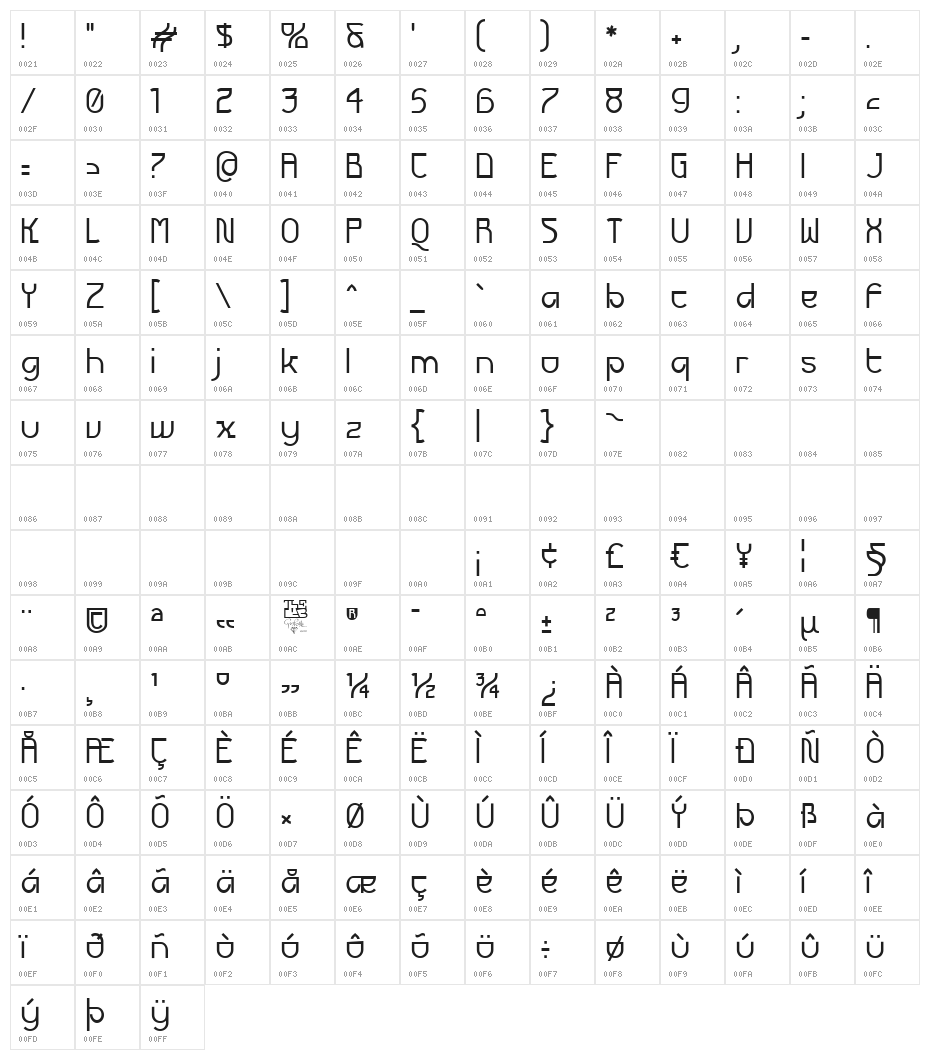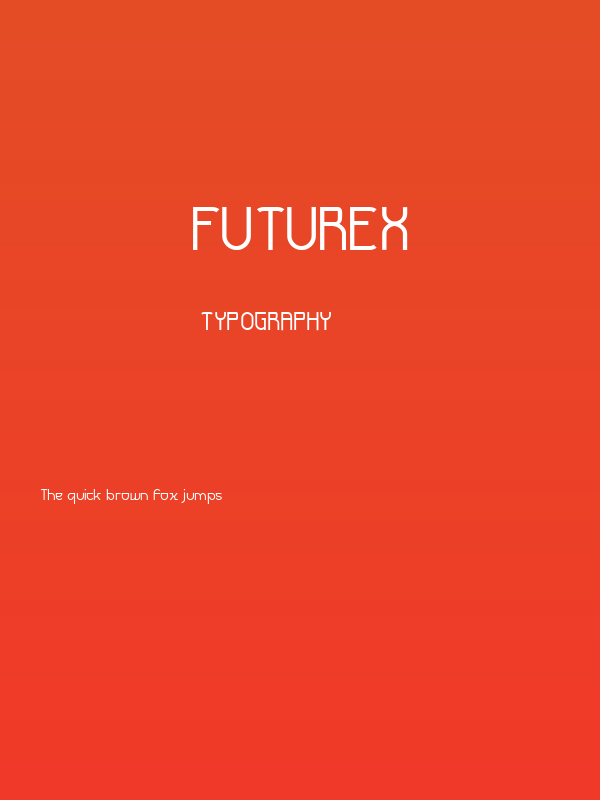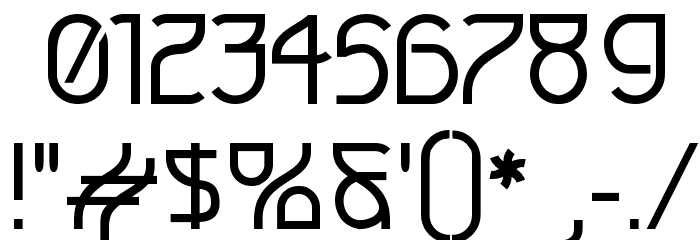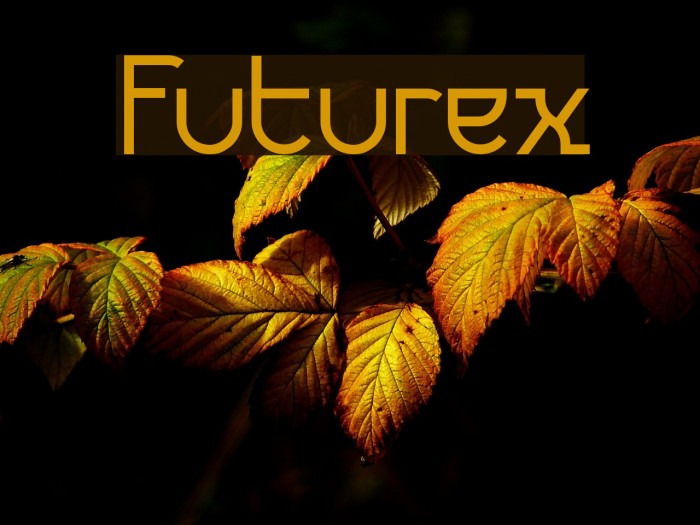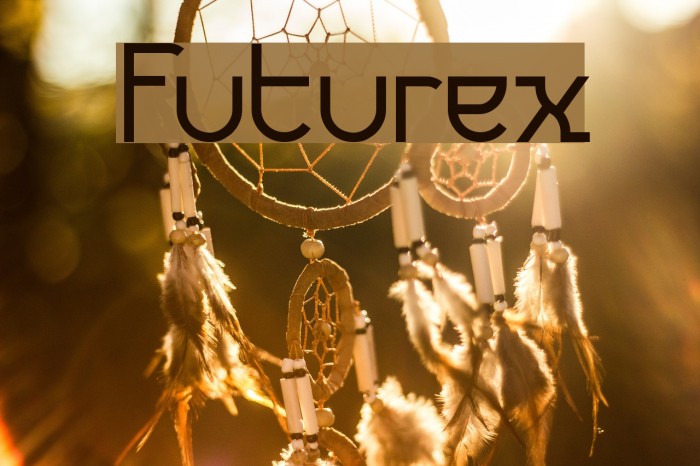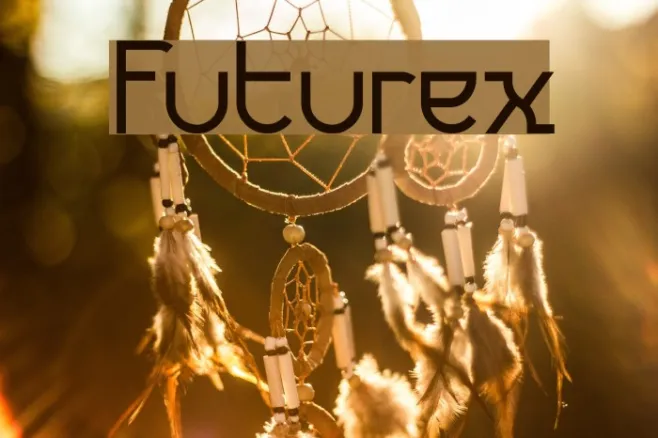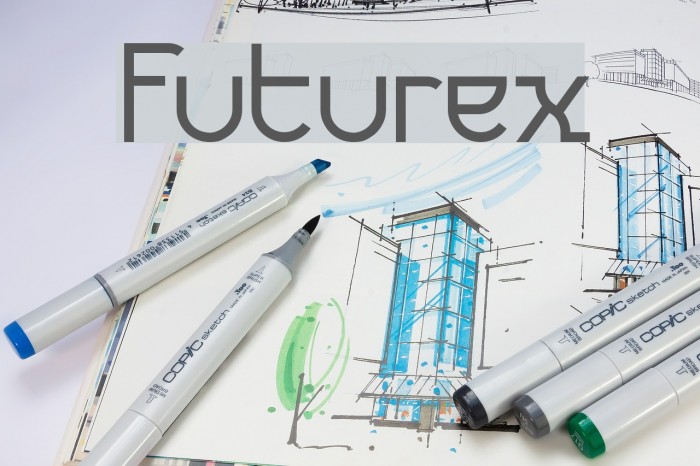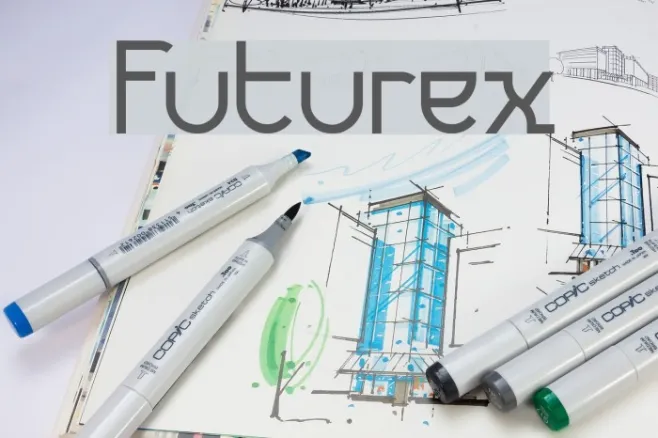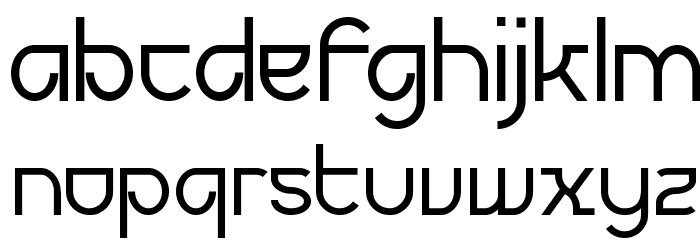
Futurex Font
Futurex Description
This font features a futuristic and geometric design, characterized by clean lines and a modern aesthetic. The uppercase letters are distinct with angular shapes and a consistent stroke width, giving a sense of uniformity and precision. The lowercase letters maintain the geometric theme, with rounded edges that contrast the angular uppercase, adding a touch of softness. Numbers are bold and clear, ensuring readability. Special characters are uniquely styled, complementing the overall futuristic theme. The font's design is both functional and stylish, making it suitable for a variety of creative applications.
| Proposed Projects | Ideal for technology branding, sci-fi themed projects, modern advertising, and digital interfaces. |